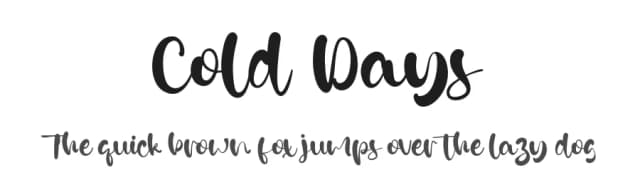
About Good Side Font
Good Side Specifications
| Font Family | Good Side |
| Full Name | GoodSide |
| PostScript Name | GoodSide |
| Designer | VZtype |
Good Side ships with 1 OpenType feature you can switch on in apps that support them (Illustrator, InDesign, Affinity, Figma, CSS font-feature-settings).
Good Side supports 224 languages.
Good Side Font is a script font that shines as a display or heading face. Pair it with a clean sans-serif or serif font for body text β the contrast creates a clear hierarchy while the two styles stay balanced and easy to read.
Good Side Font